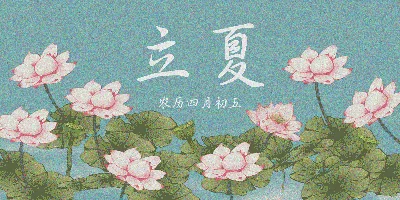
Hellofont ID Zhong Ling Xing Kai Font
Hellofont ID Zhong Ling Xing Kai combines clean construction with expressive detail, making it a dependable asset in any type toolkit.